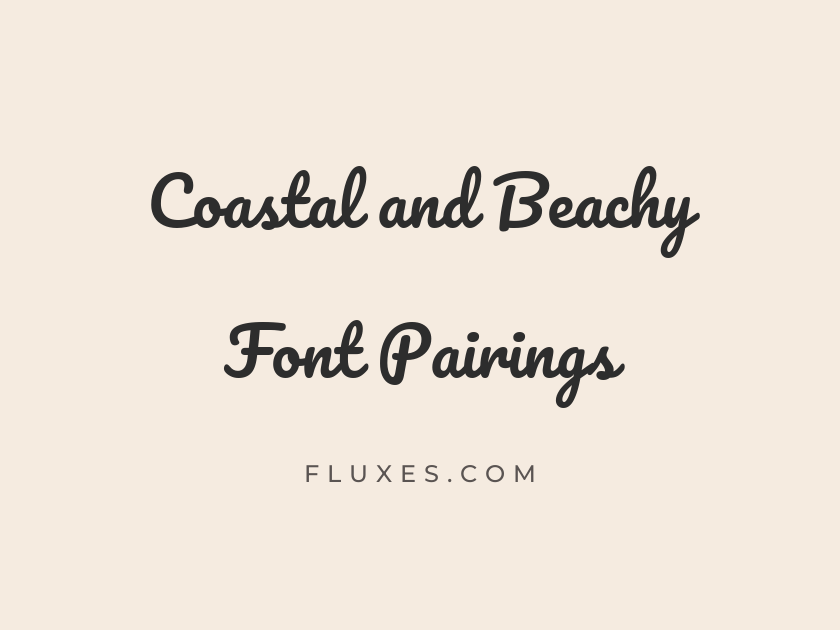
10 Coastal and Beachy Font Pairings
Coastal design leans on a specific kind of contrast: relaxed, sun-worn display letterforms set against clean, easy-to-read text faces that keep the whole thing from feeling like a novelty tiki bar sign. The pairings below balance breezy character with practical legibility, so they hold up on everything from beach house branding to resort menus.
1. Pacifico + Lato
A relaxed script paired with a clean sans keeps the mood casual without sacrificing readability.
Pacifico’s rolling, brush-inspired curves carry all the beachy nostalgia you need, while Lato’s neutral, well-spaced letterforms give the eye somewhere calm to rest. This works well for surf shop logos and vacation rental branding where one element needs to carry the personality and the other needs to just communicate.
2. Amatic SC + Karla
A tall, hand-drawn condensed display softened by a warm, low-key grotesque underneath.
Amatic SC has the loose, sketched-on-a-napkin feel of hand-painted seaside signage, and its narrow proportions make it ideal for short headlines. Karla’s rounded terminals and gentle warmth keep the body copy friendly rather than sterile, a good match for beach cafe menus and market signage.
3. Sacramento + Nunito Sans
A delicate script balanced by a soft, rounded sans that reads comfortably at small sizes.
Sacramento’s fine, looping strokes suit invitations and boutique branding that want a hand-lettered touch without heaviness. Nunito Sans has enough width and rounded warmth to counterbalance the script’s delicacy, making this pairing well suited to wedding stationery at a beach venue.
4. Baloo 2 + Mulish
A bubbly rounded display next to a plain, versatile sans that lets the headline do the talking.
Baloo 2’s chunky, rounded forms have a playful, inflatable-beach-ball energy that suits family resorts and kids’ summer camps. Mulish stays out of the way with its understated, evenly spaced letterforms, giving the pairing balance between fun and function.
5. Cormorant Garamond + Jost
An elegant serif with high contrast set against a geometric sans with clean, modern proportions.
This pairing trades beach-kitsch for coastal luxury. Cormorant Garamond’s slender, refined strokes suit upscale seaside hospitality branding, and Jost’s geometric simplicity, echoing the clean lines of Futura-style sans faces, keeps supporting text crisp and contemporary.
6. Lobster + PT Sans
A bold retro script paired with a sturdy, no-nonsense sans for practical readability.
Lobster’s thick, glossy curves have a mid-century diner and tiki-bar charm that instantly reads as vacation. PT Sans is plain and dependable enough to handle menus, hours, and addresses without competing with that personality, a practical combination for beachside food and drink branding.
7. Playfair Display + Source Sans 3
A high-contrast editorial serif balanced by a humanist sans built for long-form reading.
Playfair Display brings a polished, editorial feel that suits resort branding aiming for sophistication over novelty. Source Sans 3’s calm, humanist structure and generous x-height make it comfortable for longer descriptions of amenities or itineraries.
8. Caveat + Work Sans
A casual handwritten script set beside a clean, contemporary grotesque.
Caveat has the informal, slightly uneven quality of handwriting on a postcard, which suits travel blogs and personal beach photography sites. Work Sans provides a neutral, well-proportioned backdrop that lets that handwritten warmth stand out without the page feeling cluttered.
9. Fredoka + Rubik
A soft, rounded display font paired with a slightly quirky, low-contrast sans.
Fredoka’s rounded, buoyant shapes feel like they belong on a beach snack shack or ice cream stand. Rubik shares that same rounded warmth in a more restrained form, so body text stays legible while echoing the display font’s friendly character.
10. Josefin Sans + Nunito
A slender geometric display font paired with a rounded, approachable text face.
Josefin Sans has an airy, art-deco-influenced geometry that suits minimalist coastal brands aiming for a boutique feel. Nunito’s rounded terminals soften the geometry just enough to keep body copy from feeling cold, a good fit for coastal skincare or wellness branding.
Tips for pairing coastal fonts
Limit script or hand-lettered display fonts to short headlines; they lose legibility fast at body sizes.
Pick a body font with a generous x-height so it stays readable on textured or photo-heavy backgrounds common in beach branding.
Keep contrast in mind: a loose, organic display font pairs best with a clean, structured sans or serif, not another expressive face.